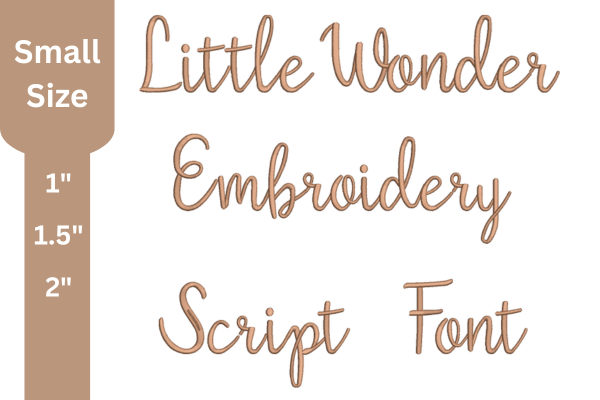
Script Embroidery Font
This embroidery font has been professionally digitized for machine embroidery use with smooth, clean stitch quality. Each character is carefully created to ensure good readability and consistent stitching across different fabrics. The font includes uppercase and lowercase letters along with numbers, making it suitable for names, monograms, logos, labels, and personalized projects. This design is ideal for home embroidery, small business products, gifts, and custom apparel. The font is optimized for embroidery machines and is not a keyboard or graphic font. An embroidery machine and compatible software are required to use this product. Perfect for adding a professional embroidered look to your projects.